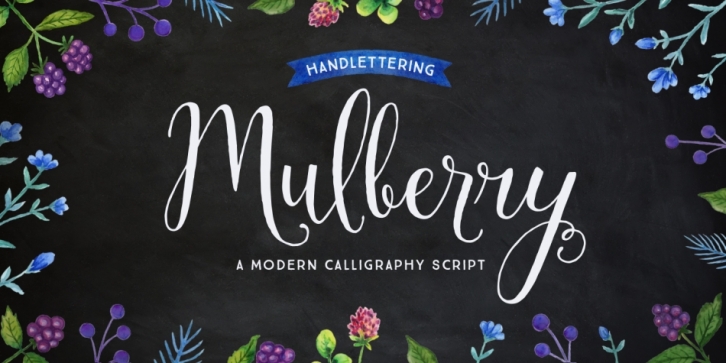
Designed by Cindy Kinash, Mulberry Script is a dingbat and modern calligraphy font family. This typeface has six styles and was published by Cultivated Mind.
Mulberry is a beautiful handwritten calligraphy script that comes with lovely alternates, ligatures, extras and ornaments. Choose between Mulberry Script or Mulberry Script Pro and two font weights (Regular/Bold).
Mulberry Script comes with a basic set of alternates. Mulberry Script Pro comes with four sets of alternates including ligatures. This typeface can be used for fashion, apparel, stationery, magazines, letterpress, film, books and marketing.